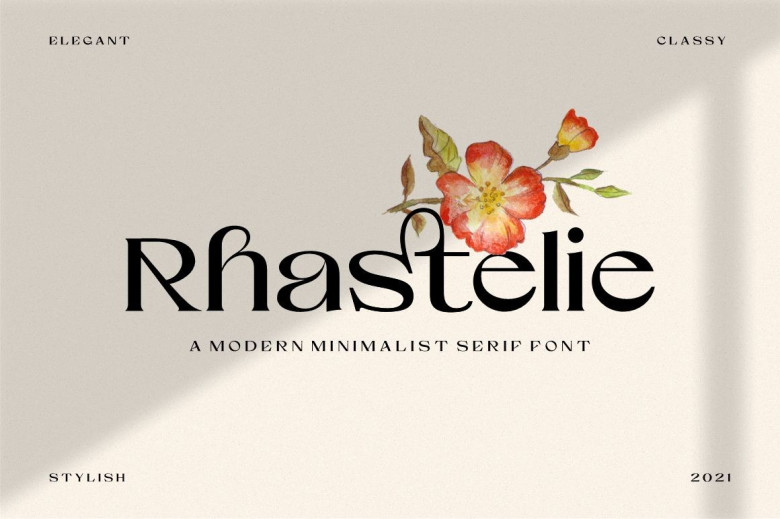
Rhastelie Font
Rhastelie is an elegant serif with a luxurious aesthetic, perfect for pairing with other fonts for any project and pairing perfectly with many fonts.
Rhastelie is the ideal design style for those seeking a timeless, clean, minimalistic, elegant, and beautiful aesthetic in their graphic design projects – logos, branding materials, business cards – it can even make up the basis of an entire graphic novel!
Rhastelie Serif Font